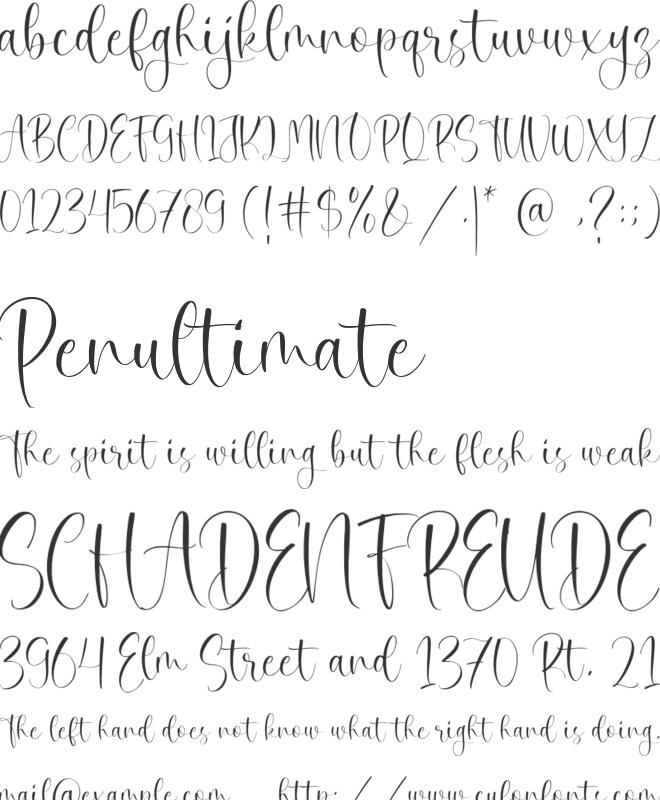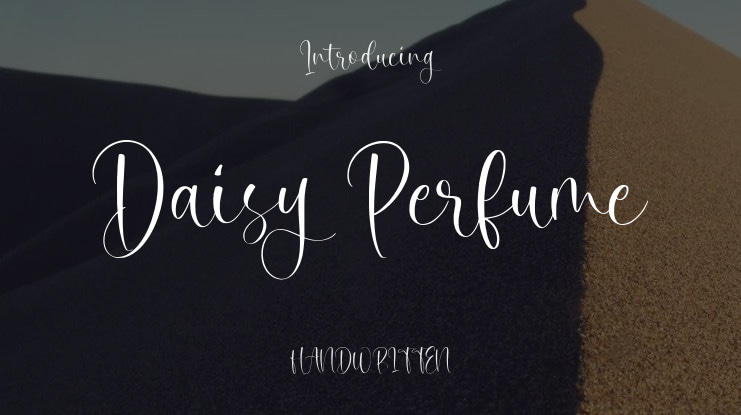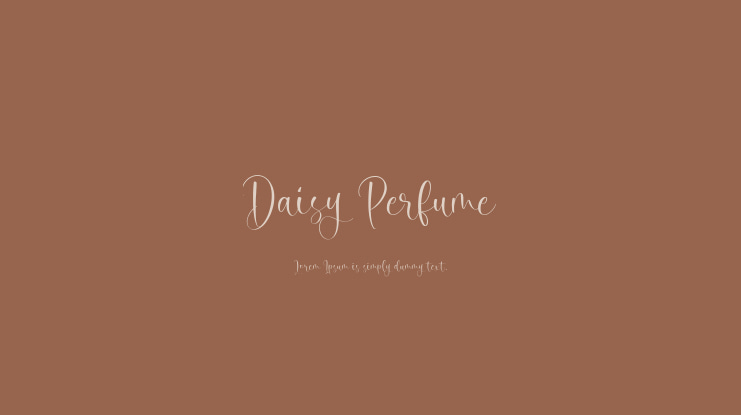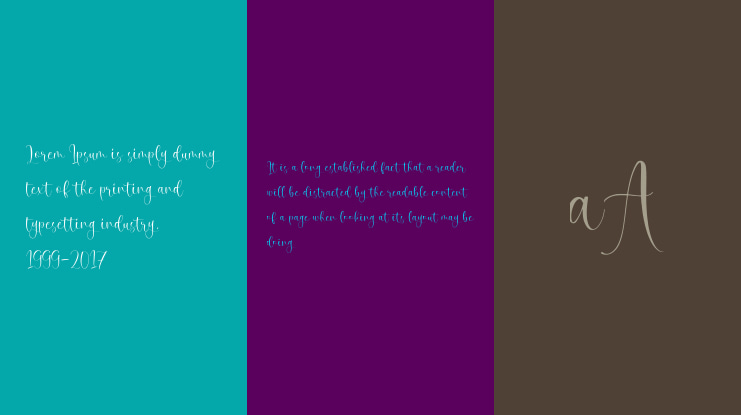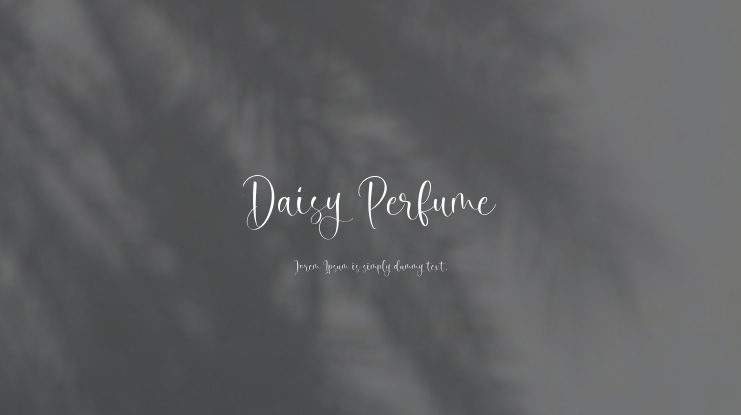
Daisy Perfume Font
Introducing by Balpirick Studio.
Daisy Perfume is a Modern Calligraphy Font that's perfect for adding a personal touch to your design projects! With its natural, organic feel and unique character.
Crafted with care and attention to detail, this font is incredibly versatile and can be used for a range of design projects, including logos, branding, invitations, and more. Its modern, handwritten style gives it a unique character that's sure to make an impact.